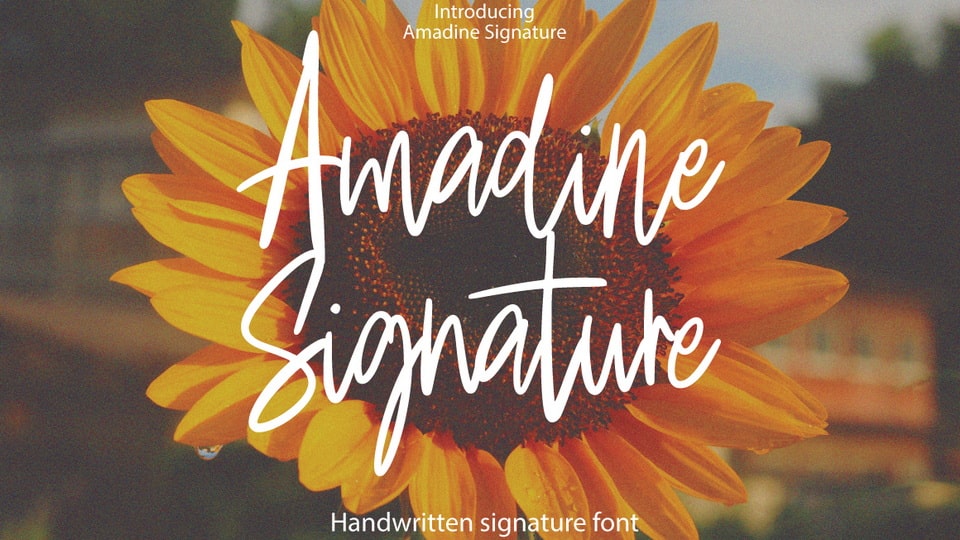
Download Amadine Signature font, a handmade signature style handwritten typeface with decorative characters and a dancing baseline
Designer: Feri Feriyal